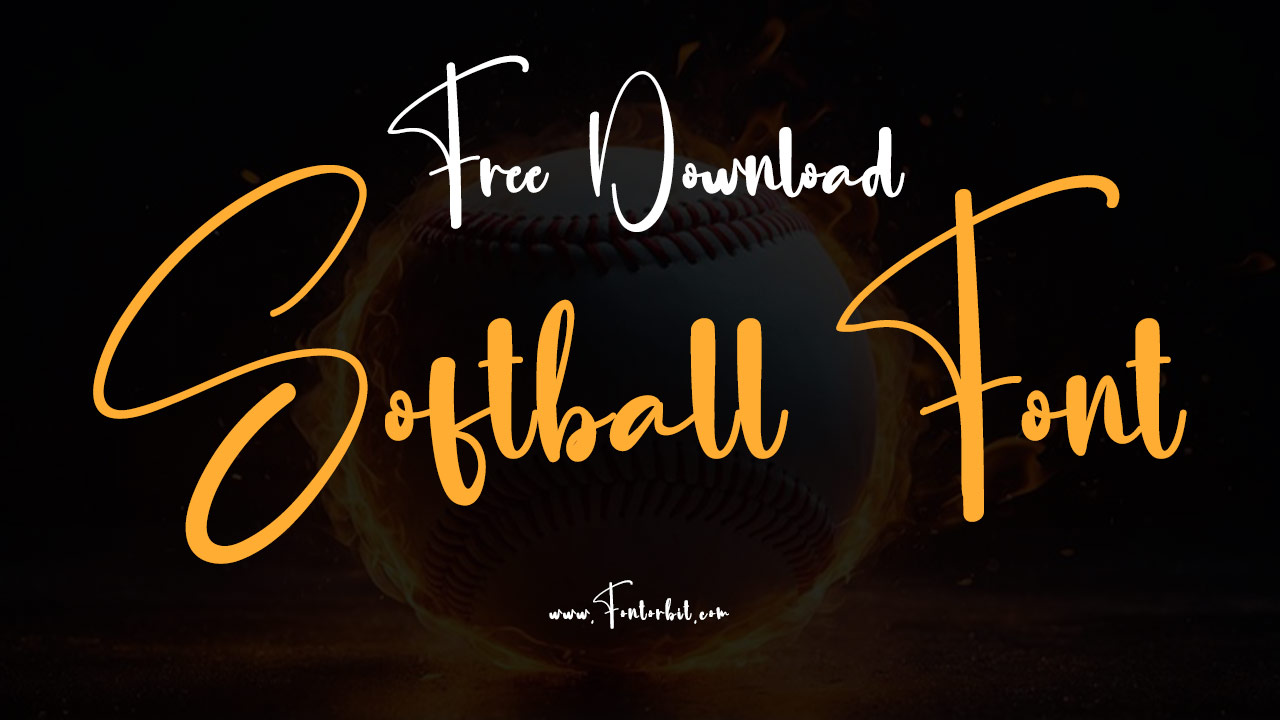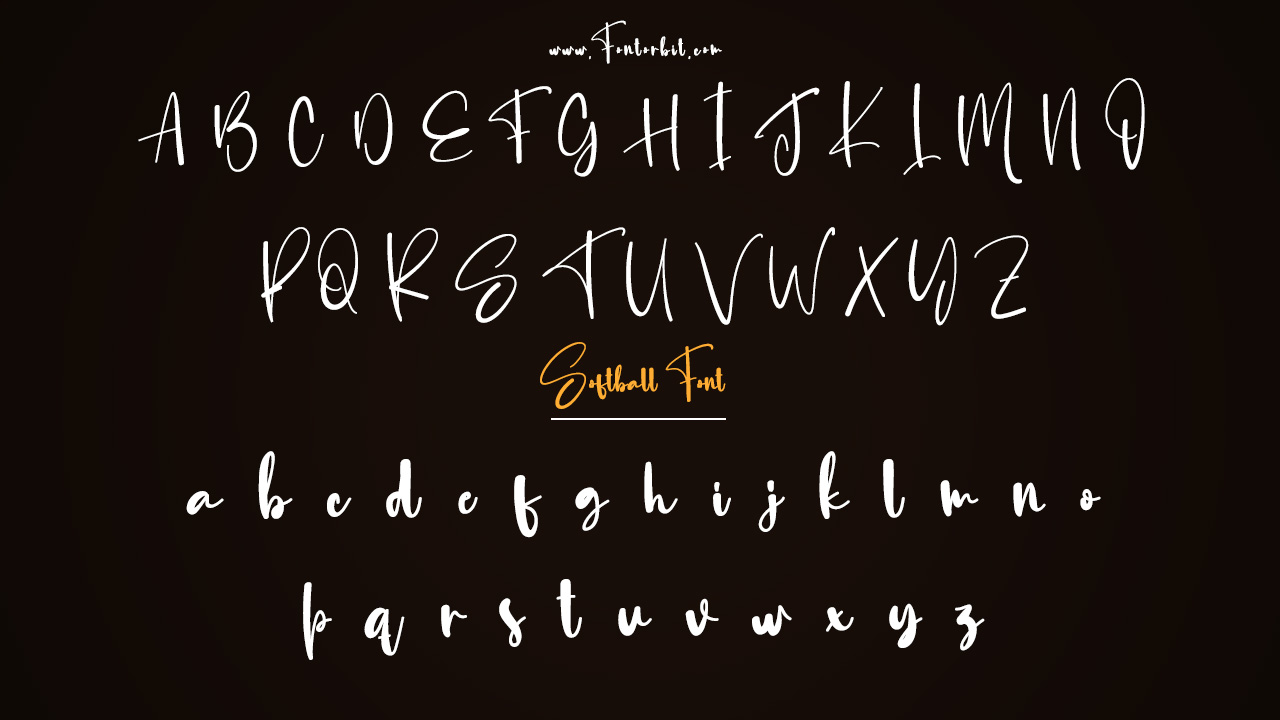
The Softball Script font is a dynamic and playful typeface designed specifically for sports enthusiasts and branding in athletic contexts. Designer Jane Doe crafted this font, which was published on January 15, 2020, as part of the Softball Fonts family.
With its bold and energetic design, Softball Script perfectly captures the spirit of the game, making it an ideal choice for team logos, merchandise, and promotional materials related to softball and sports in general.
Softball Script Regular
Notable Uses Of Softball Script
This font family is popular among sports teams, athletic brands, and event organizers. It can be seen in the following contexts:
- Team jerseys
- Event flyers
- Sports merchandise
- Promotional banners
Softball Script is versatile and can be effectively used in:
- Logos for sports teams and organizations
- Invitations for softball tournaments
- Merchandise like t-shirts and caps
- Social media graphics promoting events
Incorporating the Softball Script font into your design projects can add a sporty and energetic vibe, perfect for conveying team spirit and enthusiasm. Whether you use it for personal projects or business branding, this font family serves as a great choice for any softball-related initiative..
6.Is Softball Script Easy To Read?
Yes, it is designed for clarity while retaining a unique style.